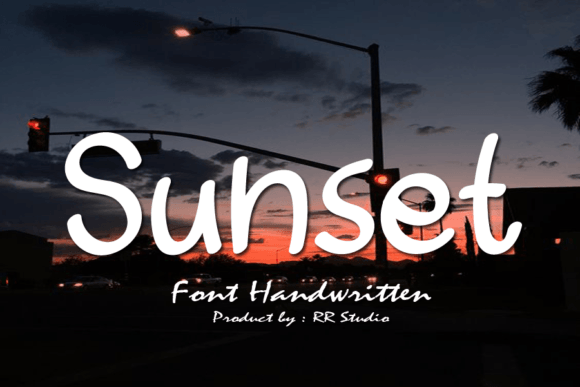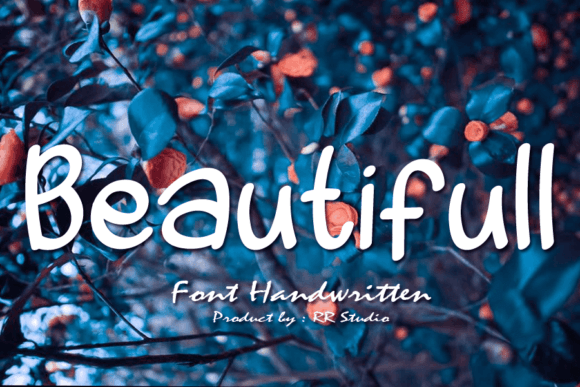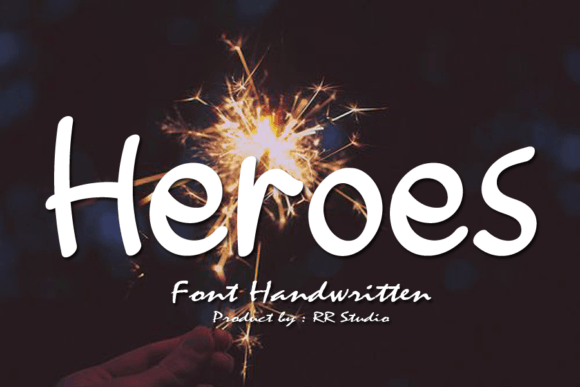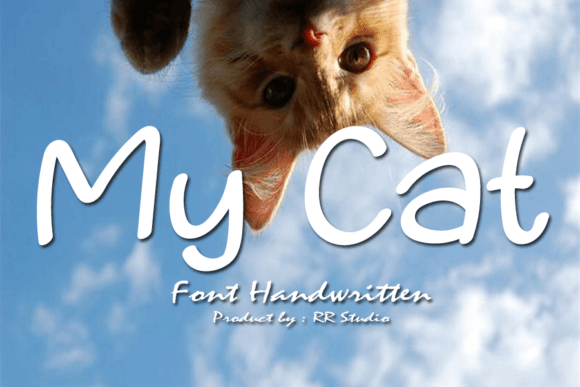
Rizqullah Font
About Rizqullah Font
“Rizqullah” is a sweet and cursive handwritten font that brings a gentle and romantic touch to a variety of design projects. Its graceful and flowing script makes it a stunning choice for applications such as wedding invitations, thank you cards, quotes, greeting cards, logos, business cards, and any design that benefits from a handwritten aesthetic.
The cursive nature of “Rizqullah” adds a personal and elegant feel to your projects, enhancing their visual appeal with a touch of sophistication. Whether you’re working on print or digital designs, this font is crafted to elevate your creations and evoke a sense of joy and romance.
Incorporating “Rizqullah” into your designs allows you to infuse a handwritten charm, making your projects stand out with a unique and authentic character. Its versatility makes it suitable for various creative endeavors where a cursive and sweet font is desired.
In summary, “Rizqullah” is more than just a font; it’s a design tool crafted to bring a sweet and romantic aesthetic to your projects. Let this cursive handwritten font be the key to enhancing your designs with a touch of joyful elegance.